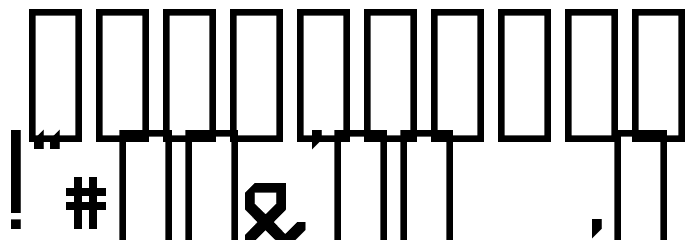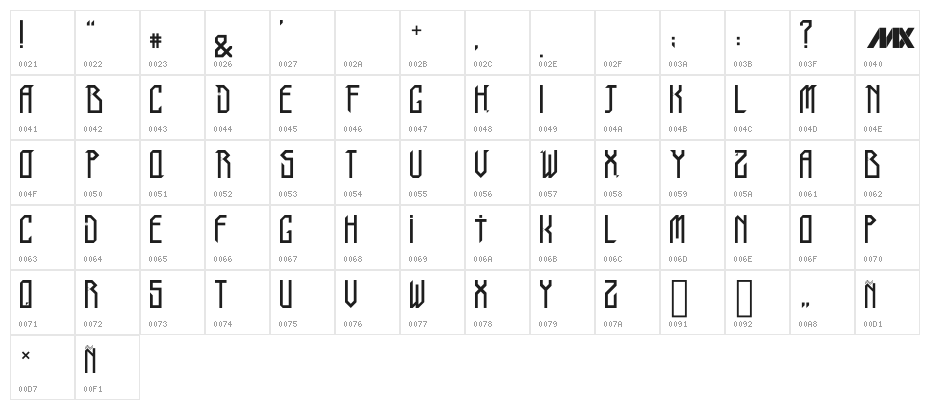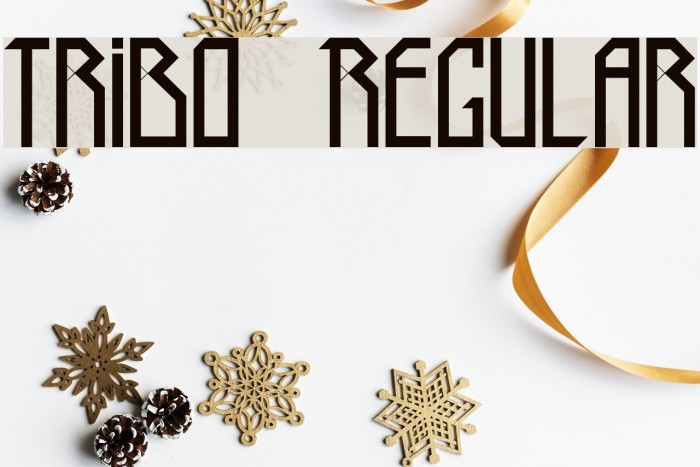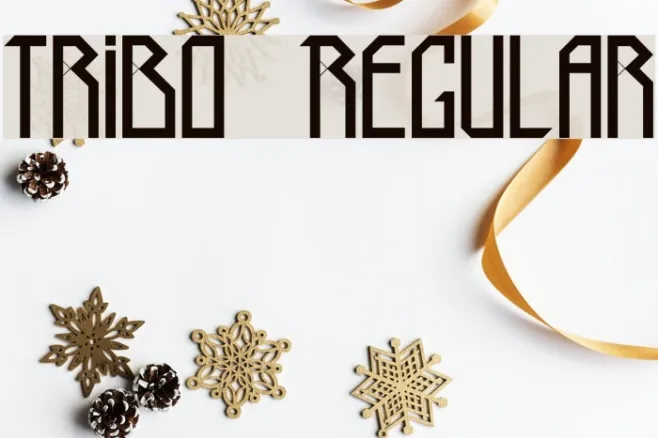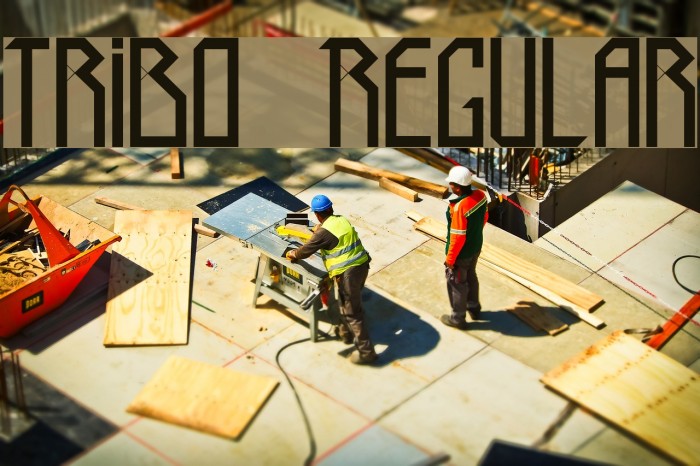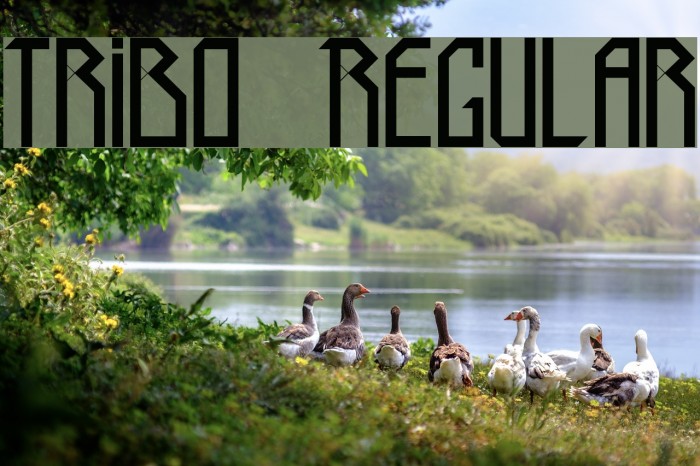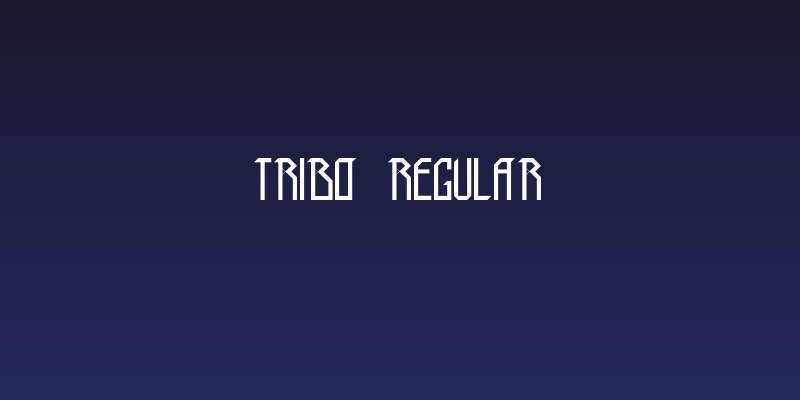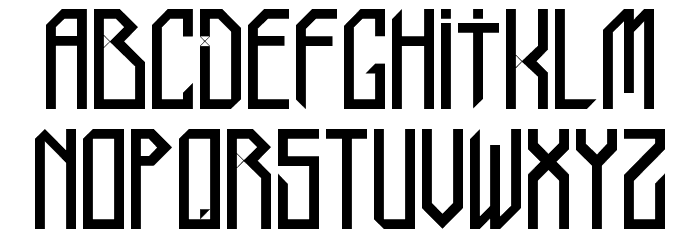
Tribo Regular Font
Tribo Regular Description
This font features a geometric and angular design, characterized by sharp edges and a bold presence. The uppercase letters are distinct with their tall, narrow forms and pointed corners, giving a futuristic and industrial feel. The lowercase letters maintain the same angular style, ensuring consistency throughout the typeface. The numbers are similarly styled, with a uniform height and width that aligns with the overall geometric theme. Special characters like the exclamation mark and ampersand are crafted with the same attention to angular detail, making them stand out. This font's unique style is both modern and edgy, perfect for making a strong visual impact.
| Proposed Projects | Ideal for branding, posters, and digital media projects that require a modern and edgy look. |